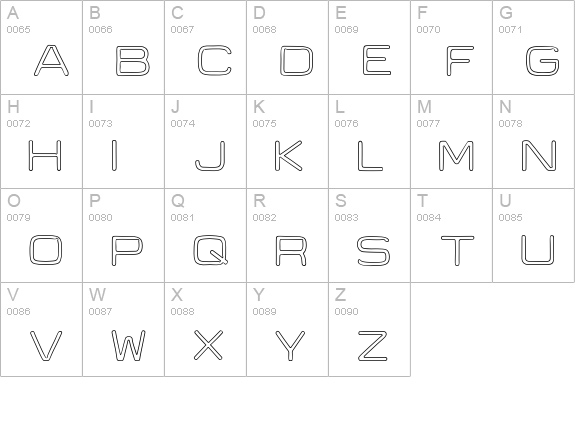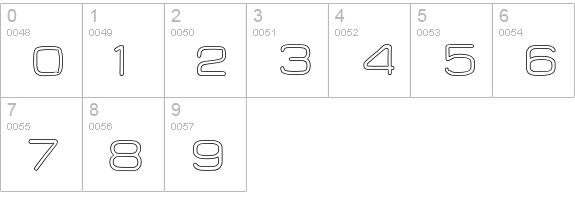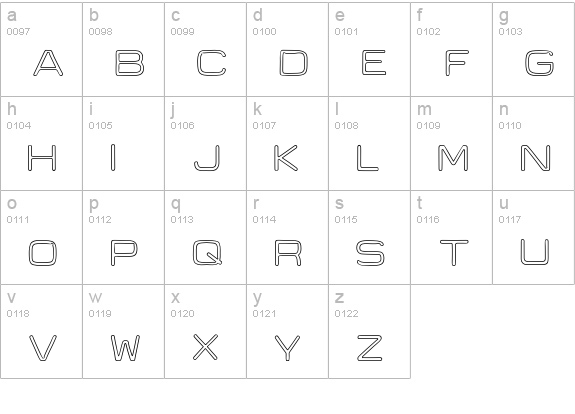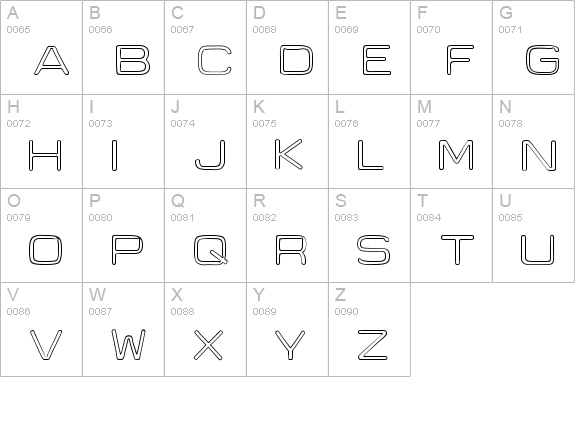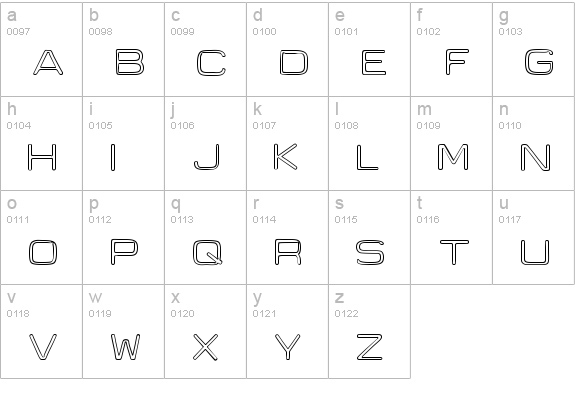
Recycle-Outline font is a striking and dynamic typeface that exudes a sense of environmental consciousness and modernity. With its sleek and clean lines, this font effortlessly captures the essence of recycling and sustainability. The outline design adds an extra layer of depth and sophistication, making it perfect for a wide range of creative projects. This font is not only visually captivating, but it also carries a powerful message. Its bold and eye-catching appearance serves as a reminder to embrace the importance of recycling and taking care of our planet. Whether you're designing a poster for an eco-friendly event, creating a logo for a sustainable brand, or crafting an impactful social media graphic, Recycle-Outline font is the ideal choice. One of the best things about Recycle-Outline font is that it is free to use. You can easily download it from FontsMarket.com, a trusted source for high-quality fonts. This means that you can incorporate this unique and impactful typeface into your projects without worrying about any additional costs. It's a fantastic opportunity to access a premium font that not only elevates your design but also aligns with your values. Overall, Recycle-Outline font is a must-have for designers and creatives who want to make a statement about sustainability and eco-consciousness. Its sleek, clean, and powerful design, combined with its availability as a free download on FontsMarket.com, makes it a go-to choice for any project that aims to promote a greener and more sustainable future.